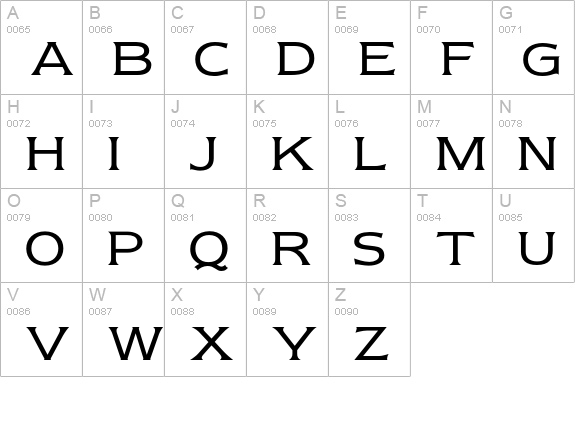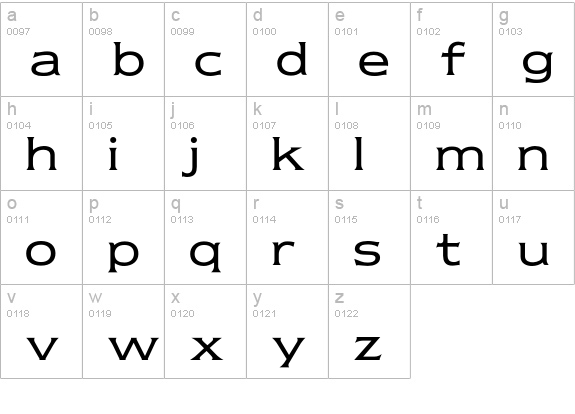
Introducing NewtextBook font, a versatile and modern typeface that is perfect for a wide range of design projects. With its clean lines and classic appeal, NewtextBook font is ideal for both print and digital applications. Whether you're designing a book cover, website, or marketing materials, this font will add a touch of sophistication to your work. What sets NewtextBook font apart is that it is completely free to download at FontsMarket.com. Yes, that's right - you can access this high-quality font at no cost, making it a valuable resource for designers on a budget. Don't miss out on the opportunity to enhance your projects with the elegant and timeless style of NewtextBook font. Download NewtextBook font today and elevate your designs with this premium typeface that won't break the bank.